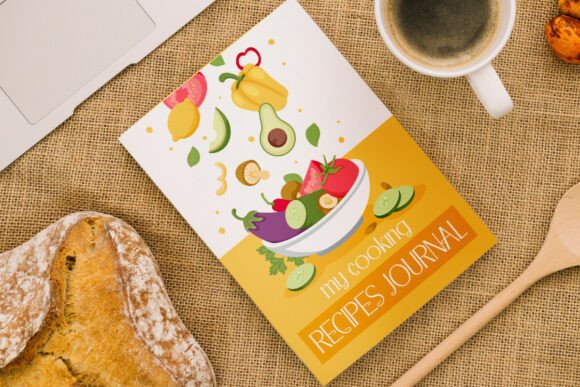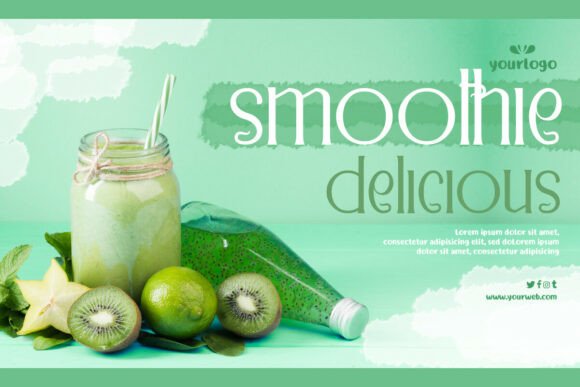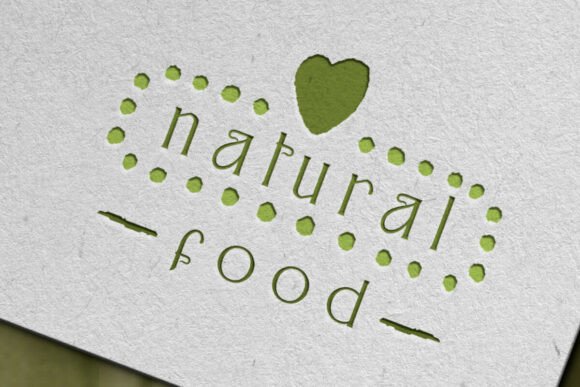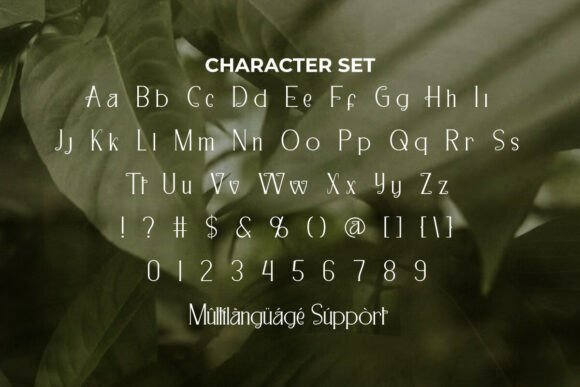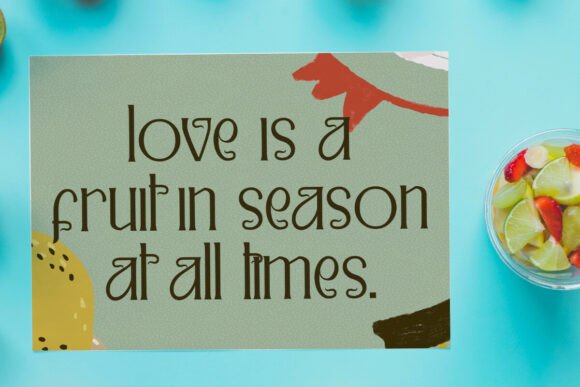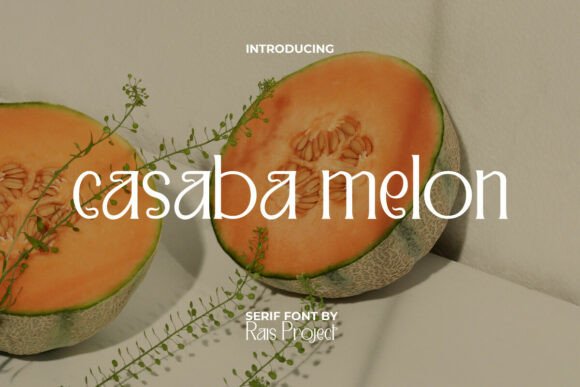
The Elegance of Casaba Melon: A Modern Serif for the Discerning Designer
I still remember the design project that led me to discover Casaba Melon. I was working on a luxury brand campaign, and my client requested a font that exuded high-end quality and sophistication. After hours of scouring font libraries, I stumbled upon Casaba Melon, and it was love at first sight. The crisp, refreshing elegance of this modern serif font won me over, and I’ve been hooked ever since.
- ✅ Exquisite balance of minimalism and high-fashion drama
- ✅ Tall, slender x-height and unique, dramatically elongated terminals and serifs
- ✅ Generous negative space for an airy, upscale appearance
- ✅ Clean construction and fluid, modern curves for minimalist logos and stylish headlines
The Story Behind Casaba Melon
While the true story behind Casaba Melon’s creation remains a mystery, it’s easy to imagine a designer inspired by the world of high fashion and luxury goods. Perhaps they sought to create a font that would evoke the elegance and sophistication of a bygone era, while still feeling modern and fresh. Whatever the inspiration, Casaba Melon is a true masterpiece of modern typography.
Q: What makes Casaba Melon suitable for luxury brands?
A: Casaba Melon’s elegant, refined design and generous negative space create a sophisticated, high-end appearance perfect for luxury brands.
Q: Can I use Casaba Melon for body text?
A: While Casaba Melon is stunning in headlines, its slender x-height and elongated terminals may make it less suitable for body text. However, it’s ultimately up to personal preference and the specific design project.
Q: Does Casaba Melon support OpenType features?
A: Yes, Casaba Melon supports various OpenType features, including stylistic alternates and glyphs. However, feature availability may vary depending on the software used.